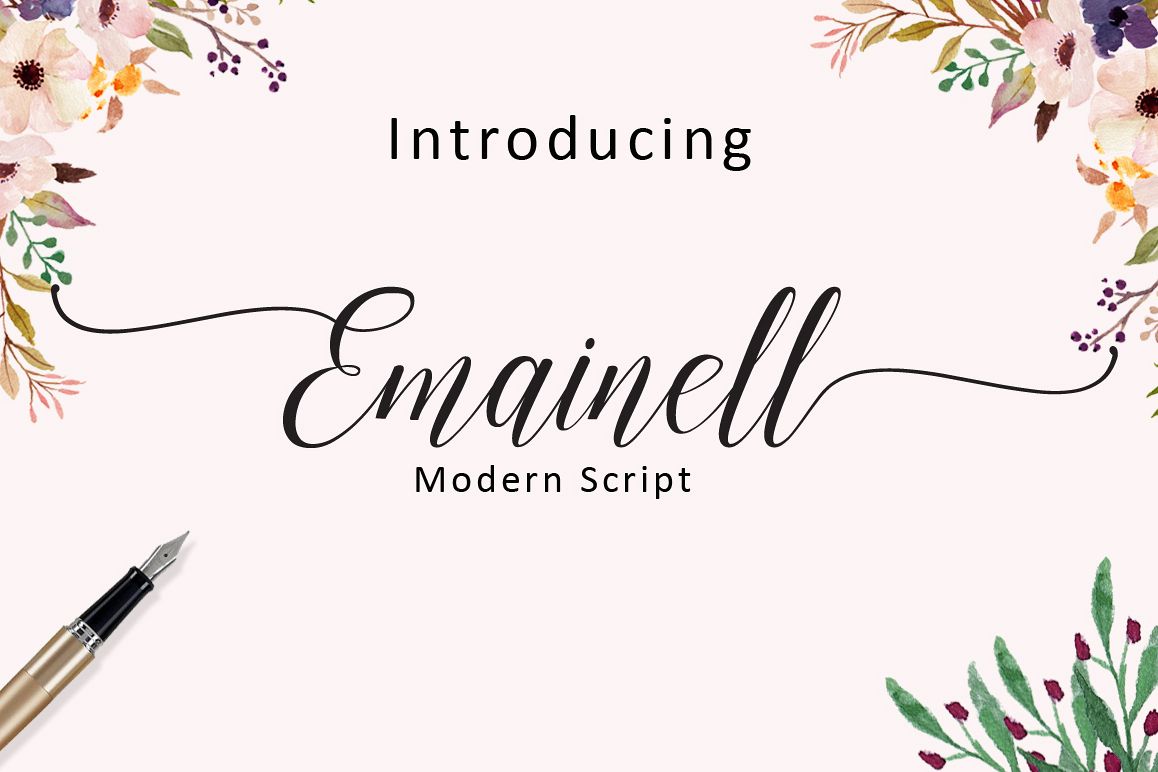
Emainell Script
Emainell Bold
Emainell
Emainell Script is a handwritten typeface with classic root. a beautiful formal script and elegant touch.
It works perfect in the world of weddings, logos, greeting cards, branding, print ads, quotes, signage, magazines etc.
Emainell features 466+ glyphs and 278 alternate characters. including initial and terminal letters, alternates, swashes,
ligatures and multiple language support.